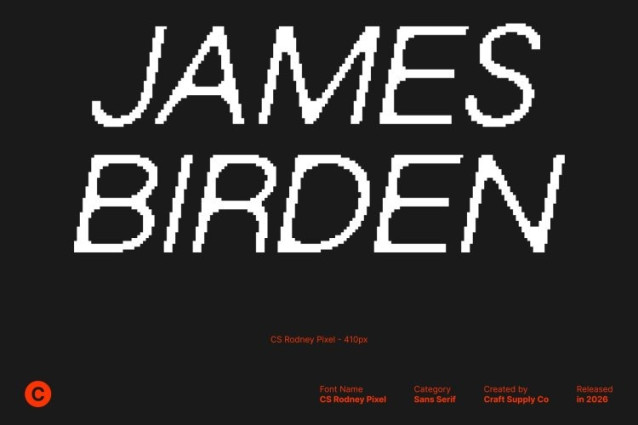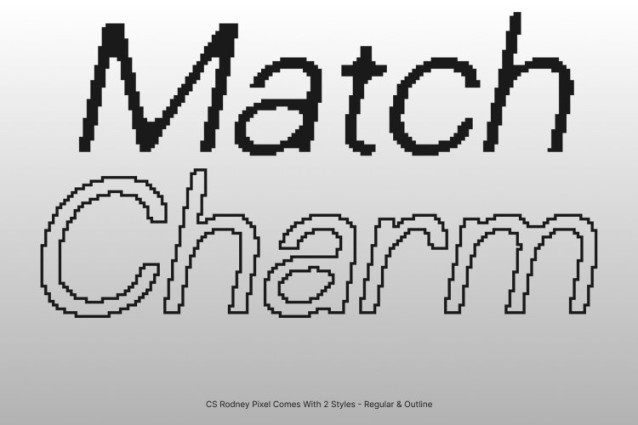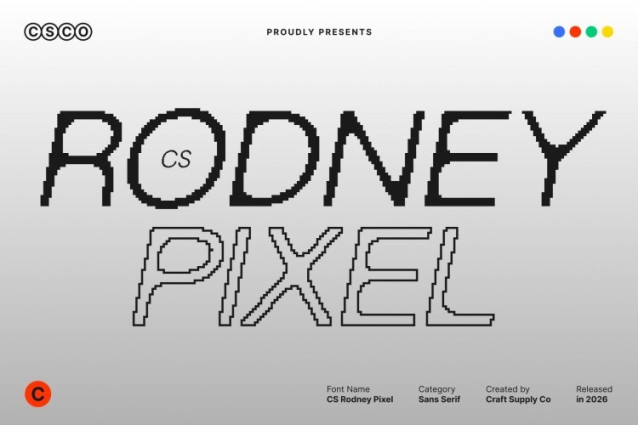
CS Rodney Pixel Font
CS Rodney Pixel Font This is a modern sans-serif font enhanced with subtle pixel detailing, giving it a unique blend of contemporary clarity and retro digital charm. Its clean lines and precise geometric structure provide a professional, polished look, while the pixel accents inject a playful nod to classic 8-bit aesthetics, making every design feel both fresh and nostalgic.
Versatile for Contemporary and Digital Design
Designed for adaptability, this font works seamlessly across various design contexts from sleek websites and digital interfaces to posters, social media graphics, and promotional materials. Its balance of simplicity, readability, and pixel-inspired flair makes it a dependable choice for modern projects that want to stand out.
Fresh, Stylish, and Memorable
This font delivers a clean, up-to-date impression while carrying subtle retro energy. The pixel-infused shapes make it ideal for creative projects that seek a modern edge with a hint of digital nostalgia, ensuring your designs are visually engaging and memorable.
Perfect for Professional and Creative Applications
Whether for branding, editorial layouts, product packaging, or dynamic web graphics, this font provides a versatile, stylish solution. Its combination of modern sans-serif clarity and pixel-inspired retro detail brings personality, professionalism, and a touch of digital flair to any project.